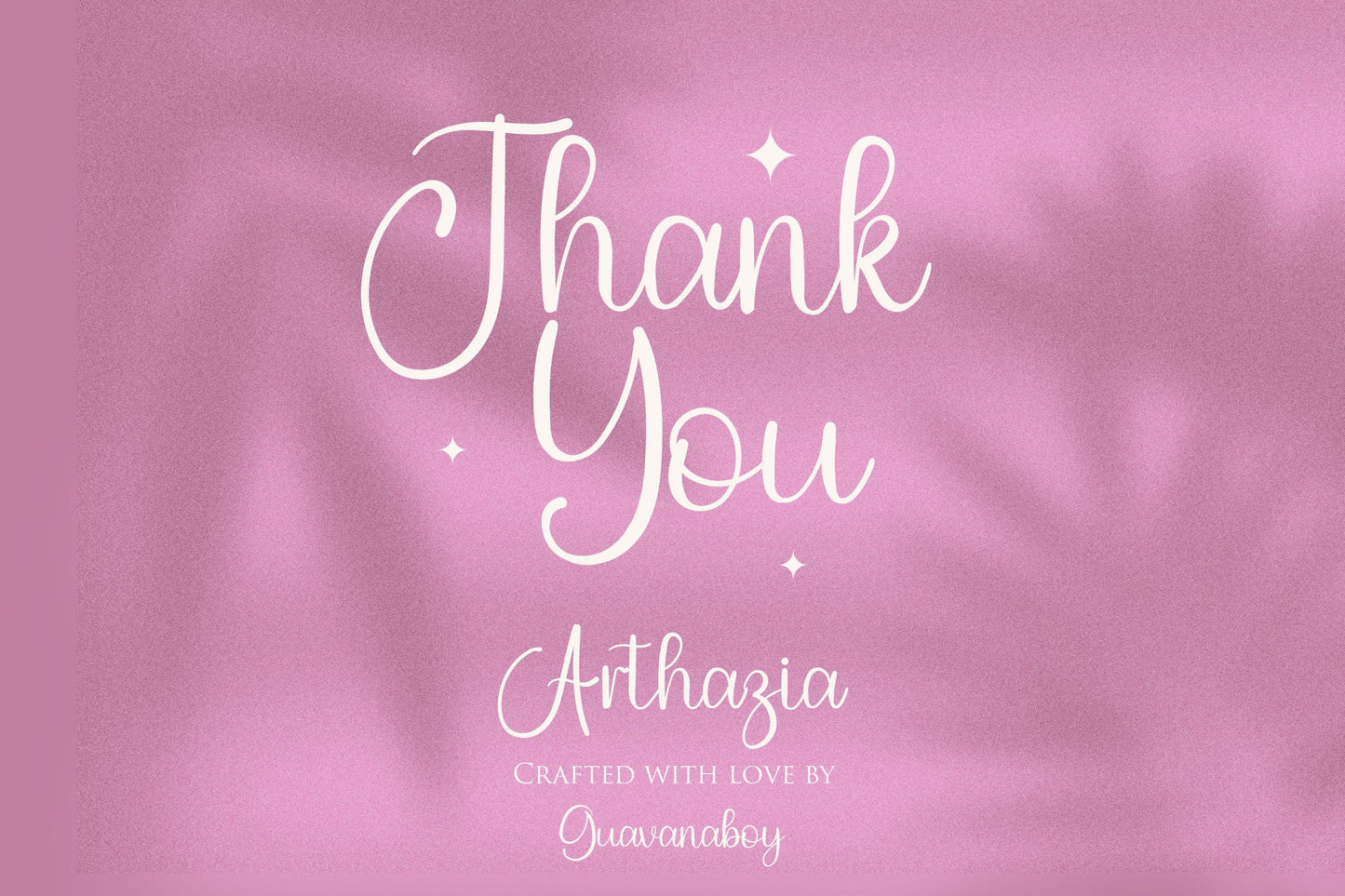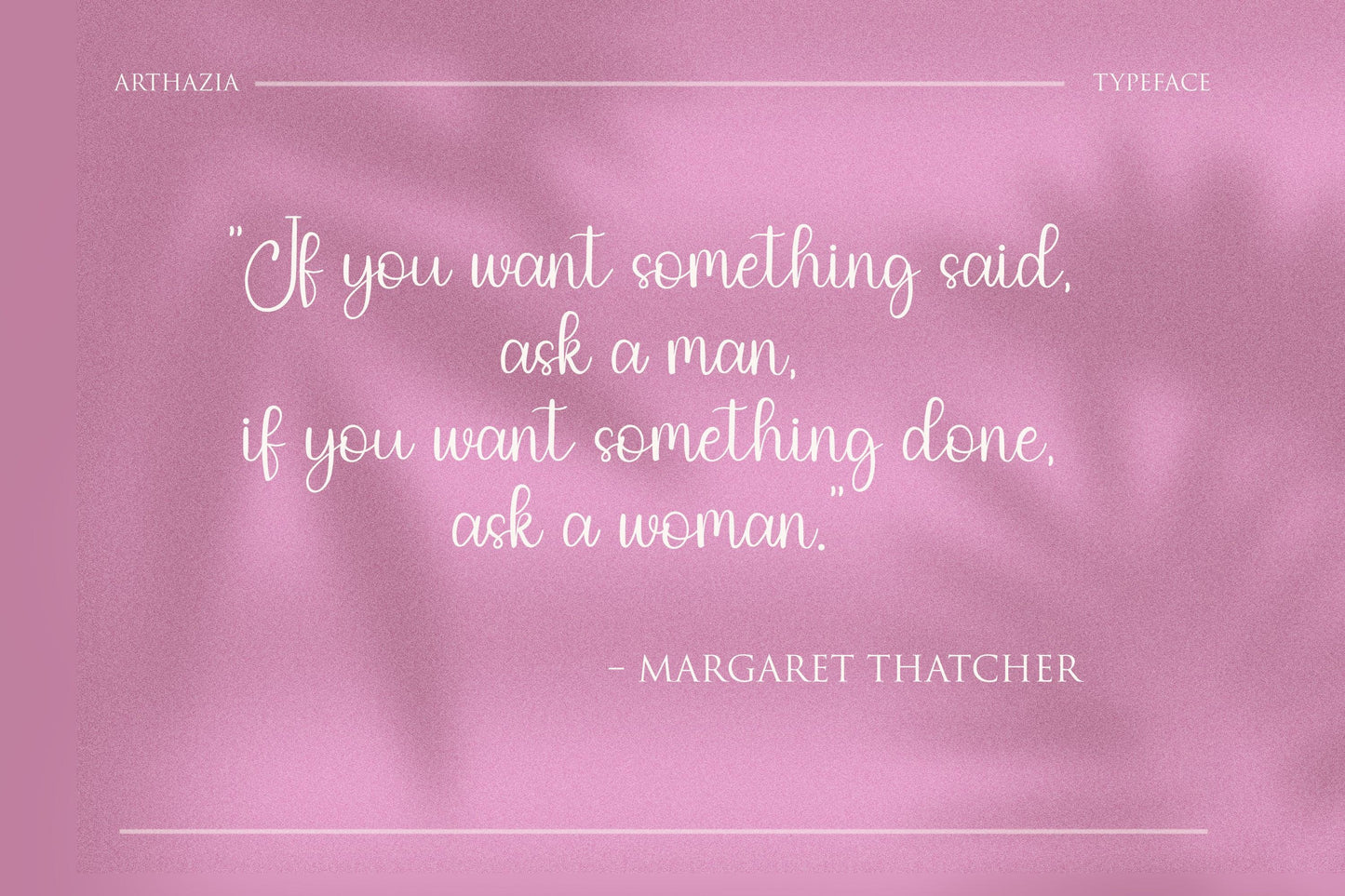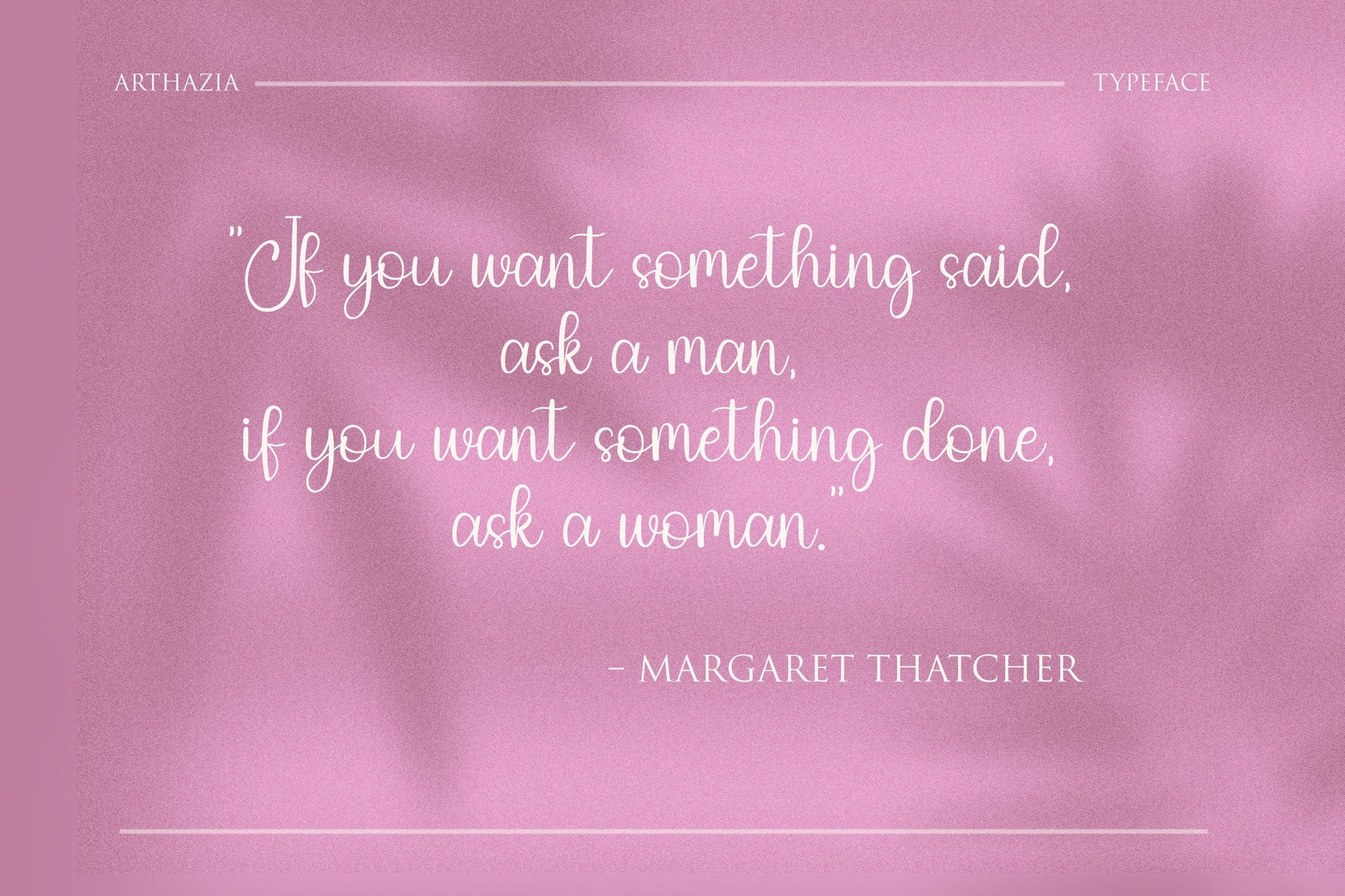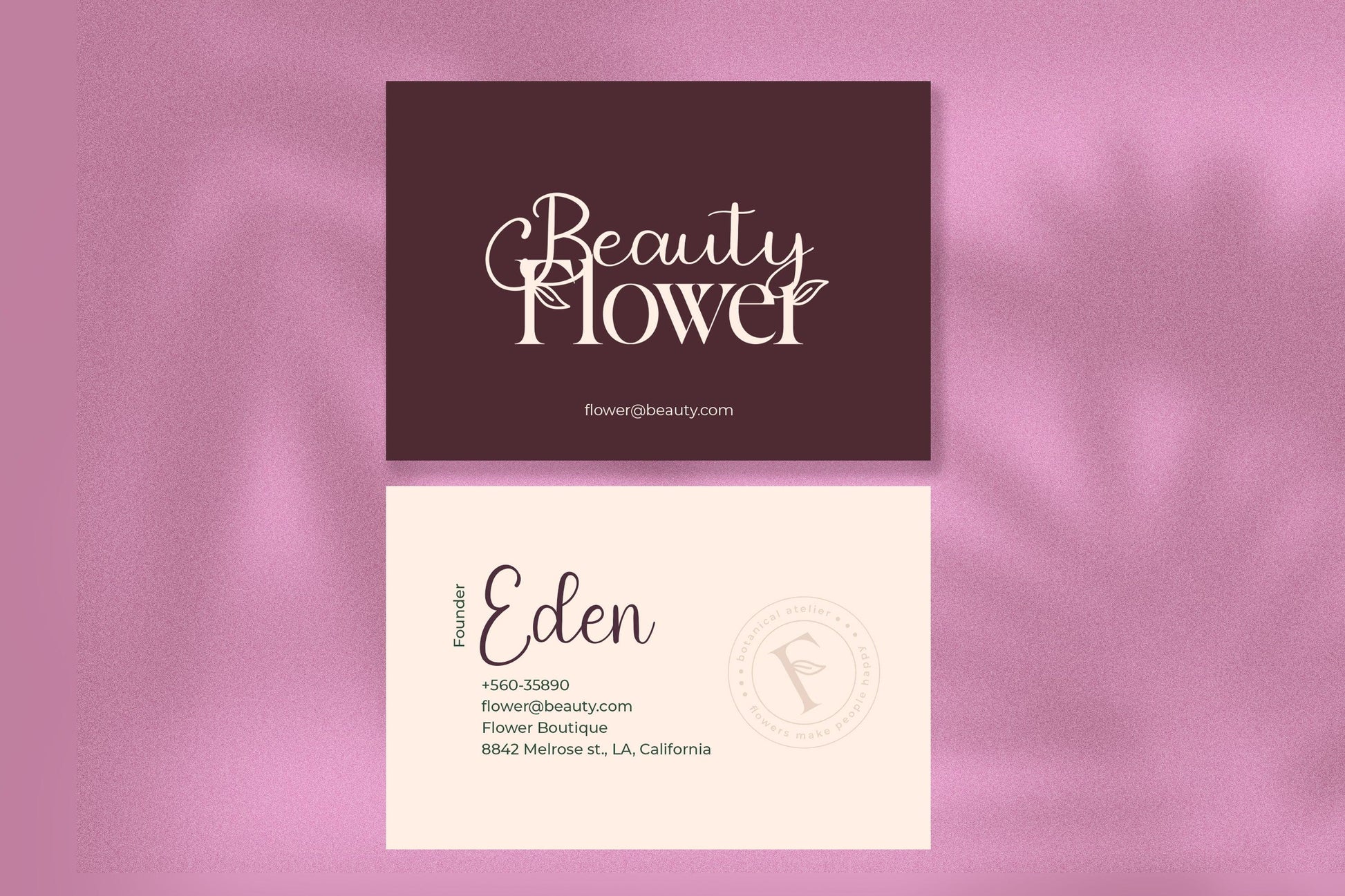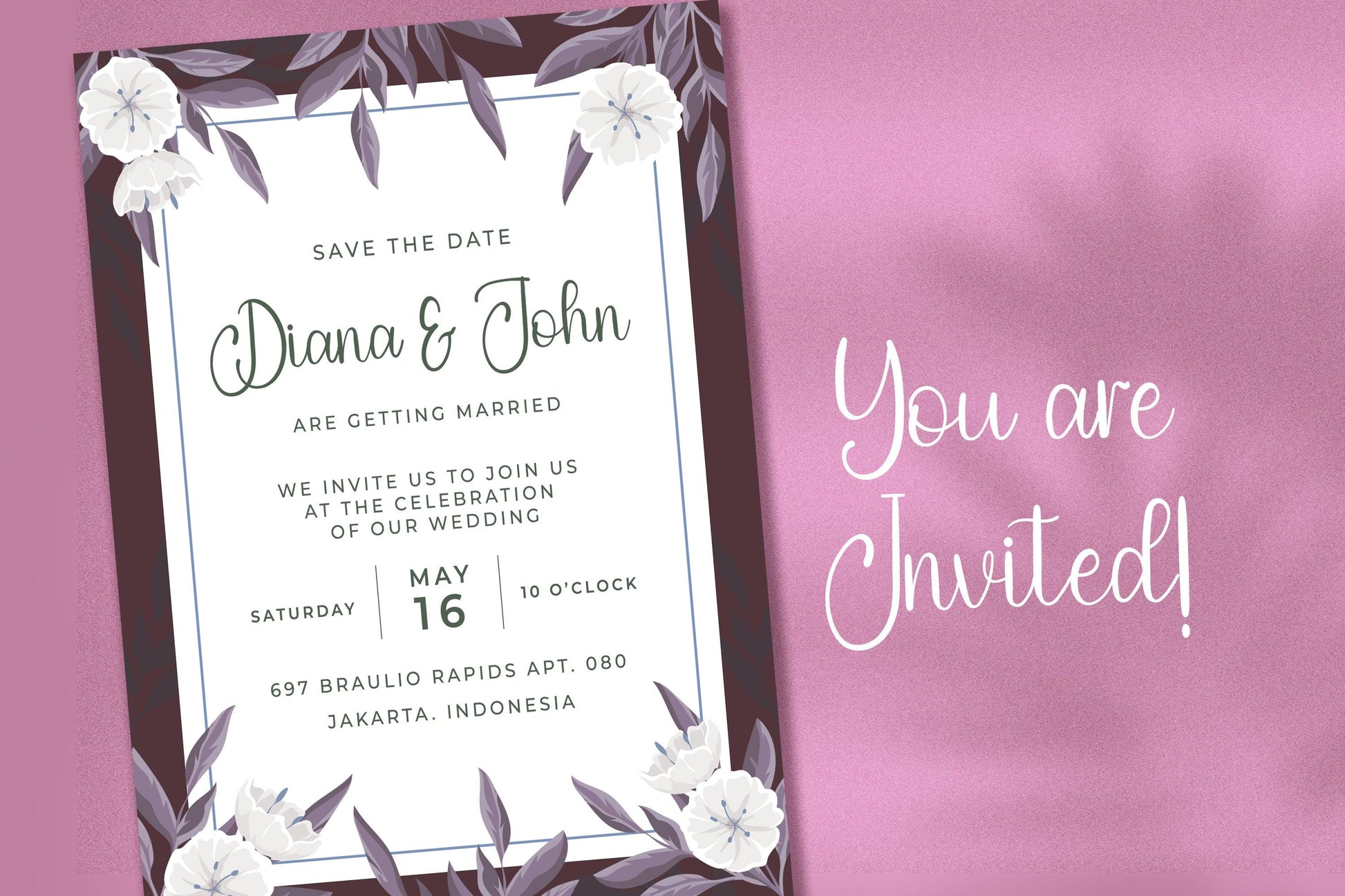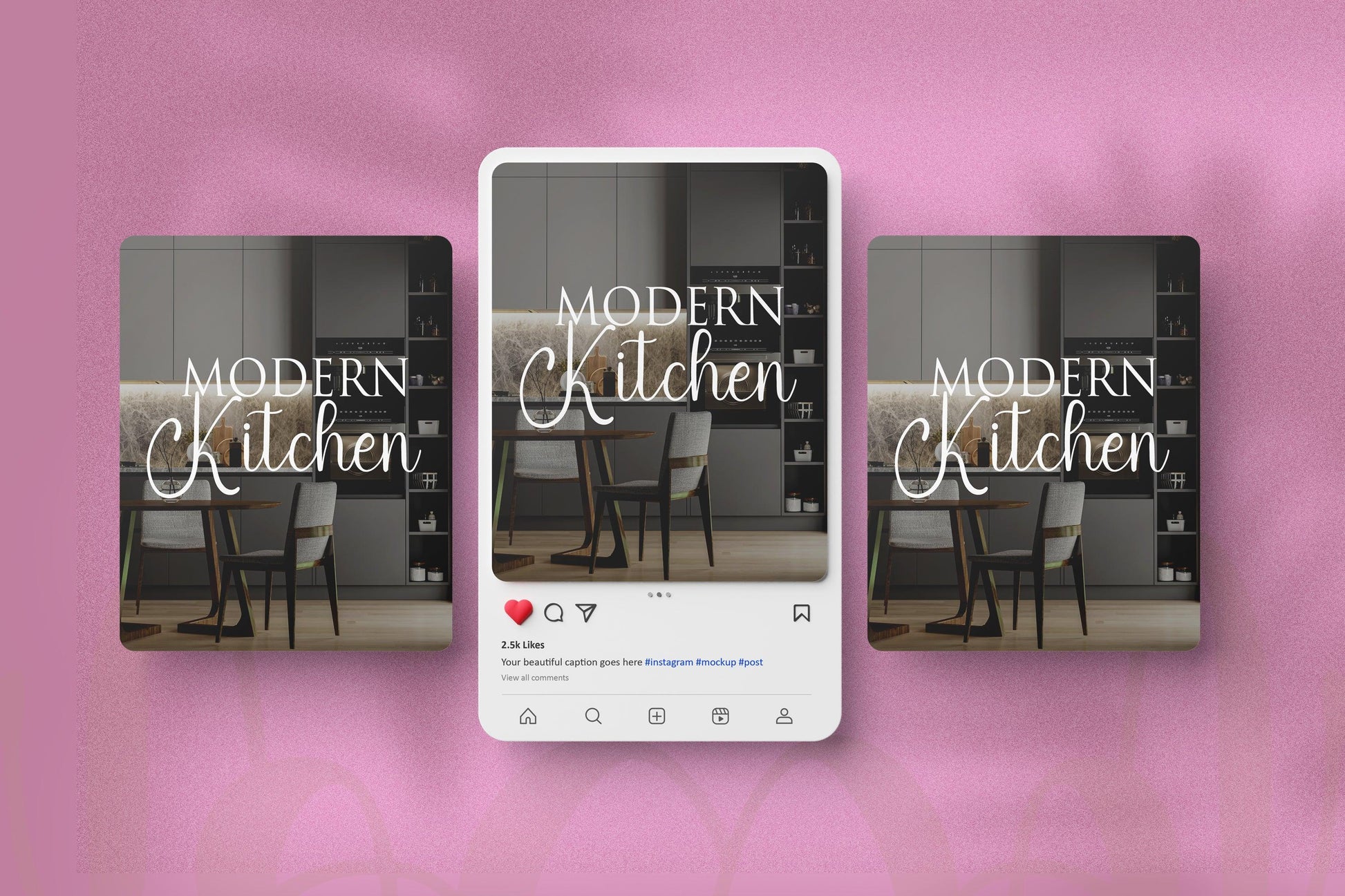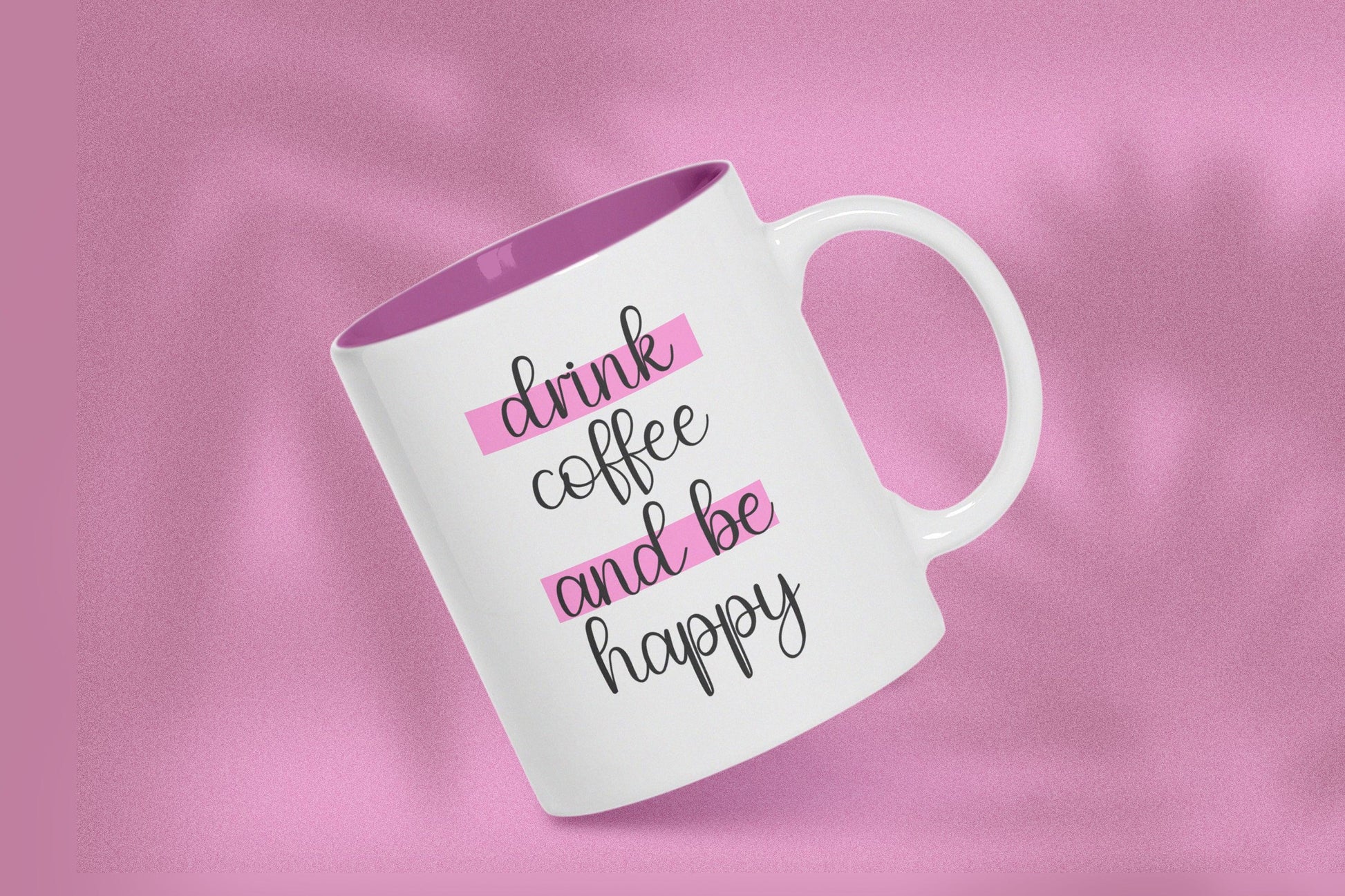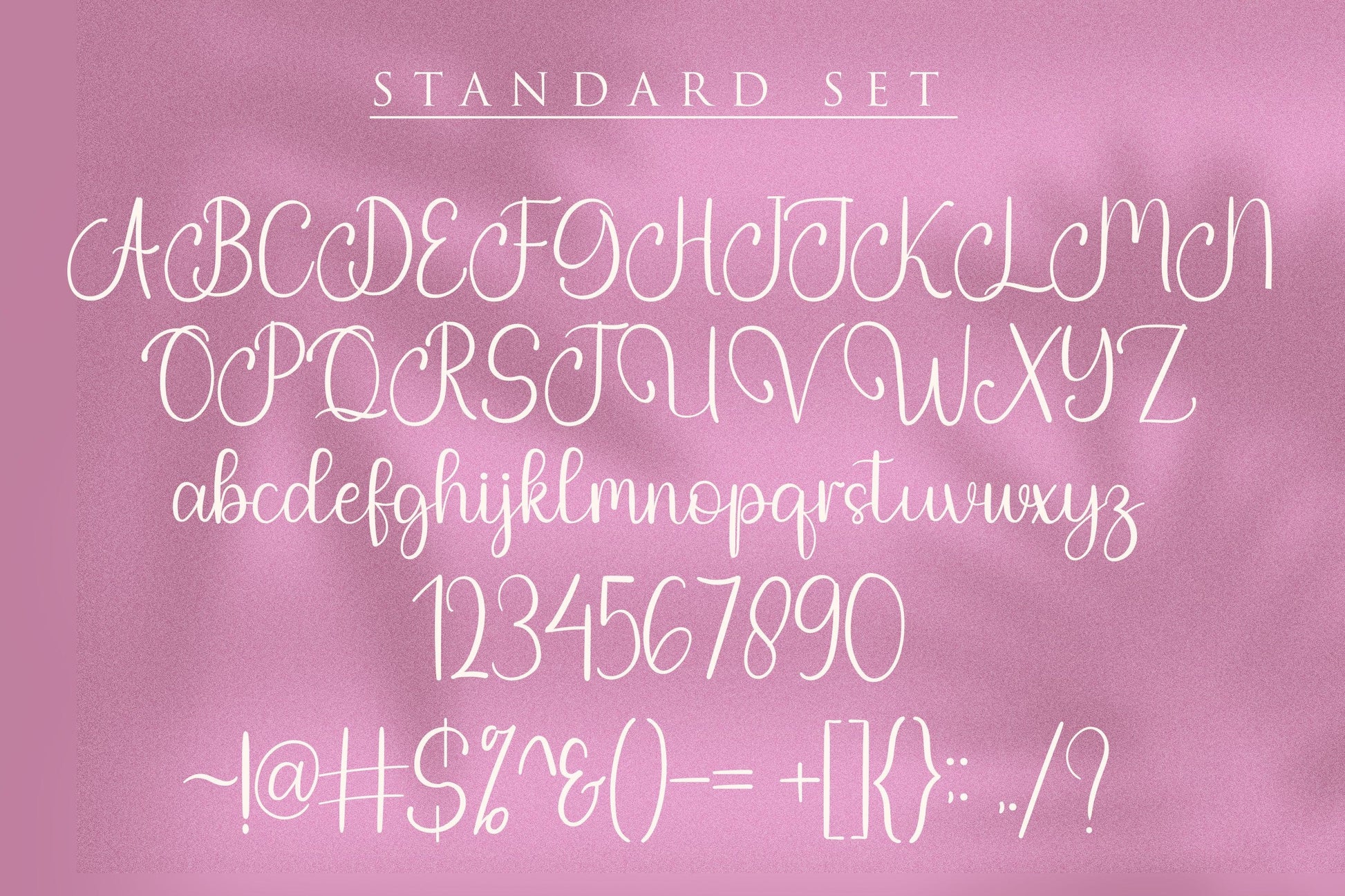
Arthazia - Beauty Handwritten Font Style
Discover the elegance of Arthazia, a stunning Beauty Handwritten Font Style designed to bring sophistication and charm to your creative projects. With its graceful curves and natural strokes, Arthazia is perfect for wedding invitations, branding, social media posts, packaging, and more. Whether you’re crafting heartfelt messages or building a polished brand, Arthazia adds a personal and luxurious touch to your designs.
- Complete Character Set: Includes uppercase, lowercase, numbers, punctuation, and multilingual support.